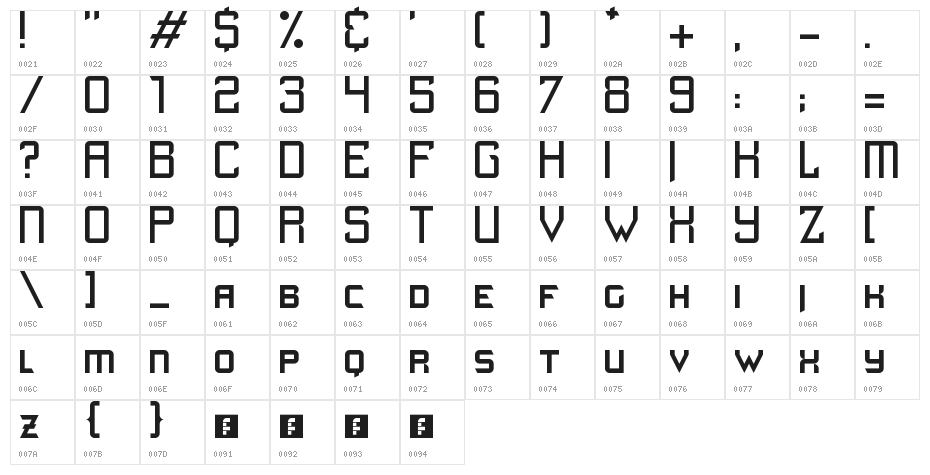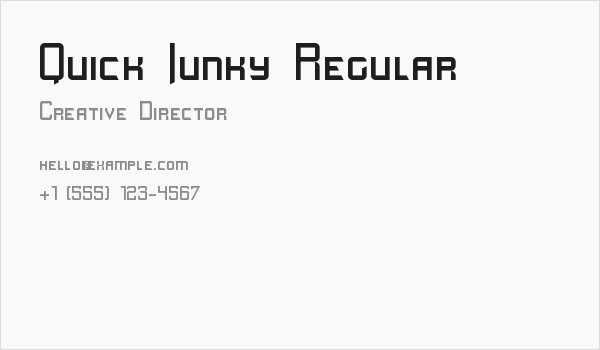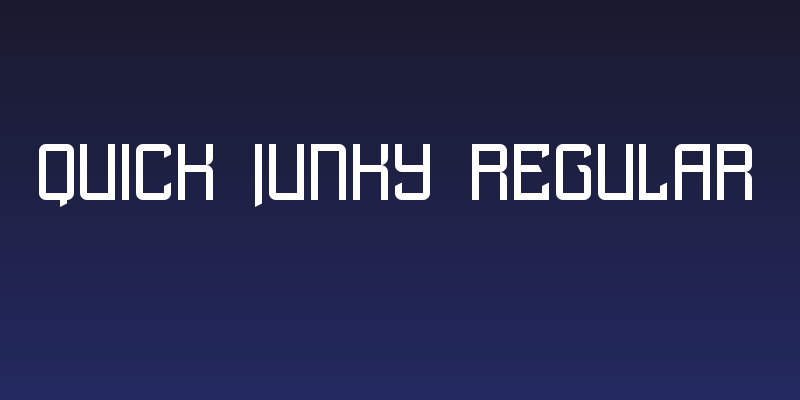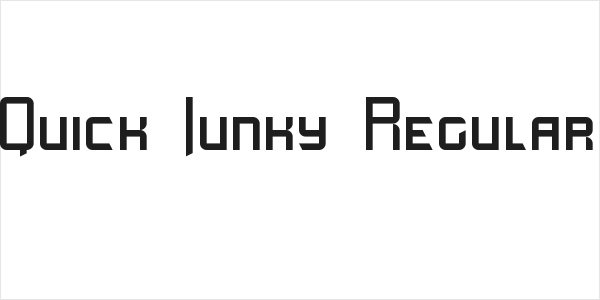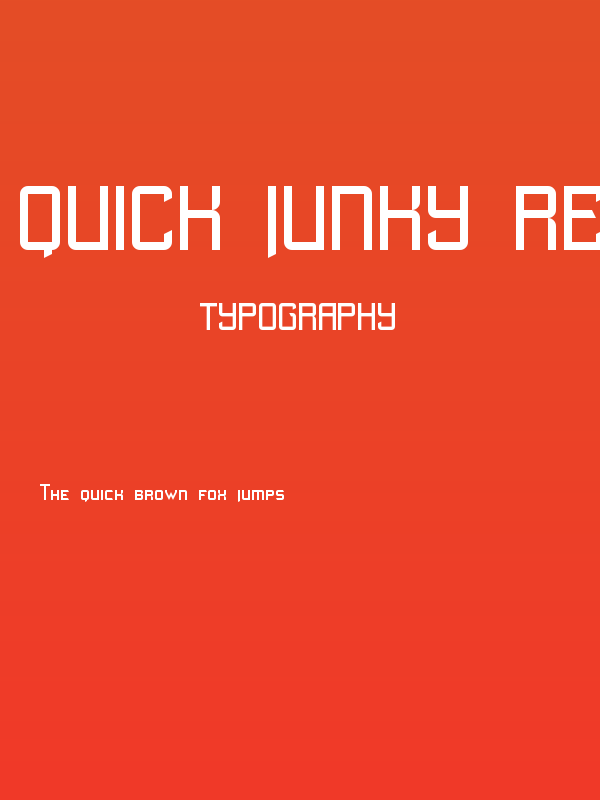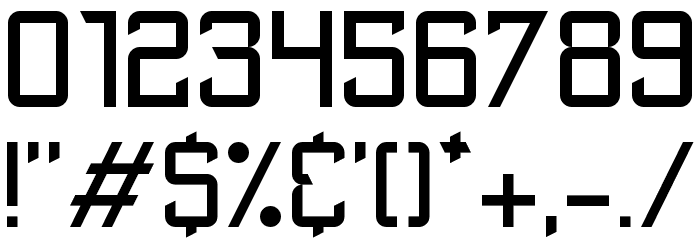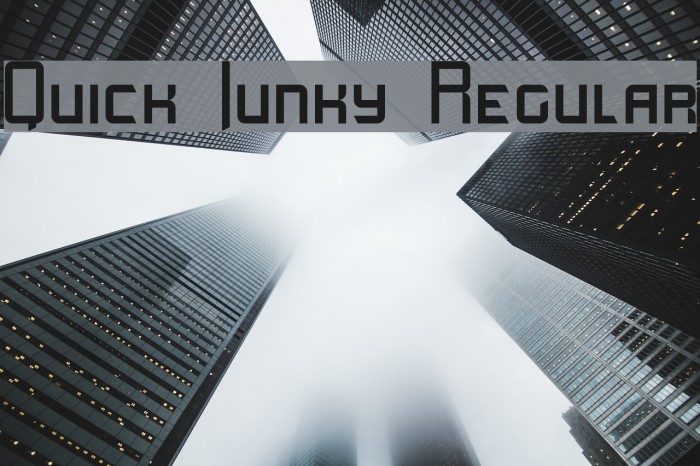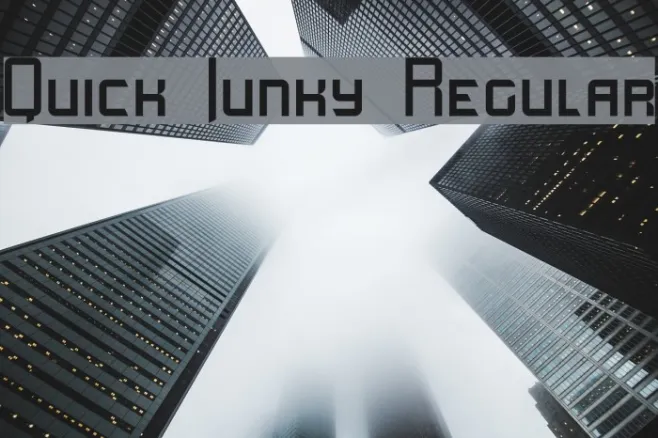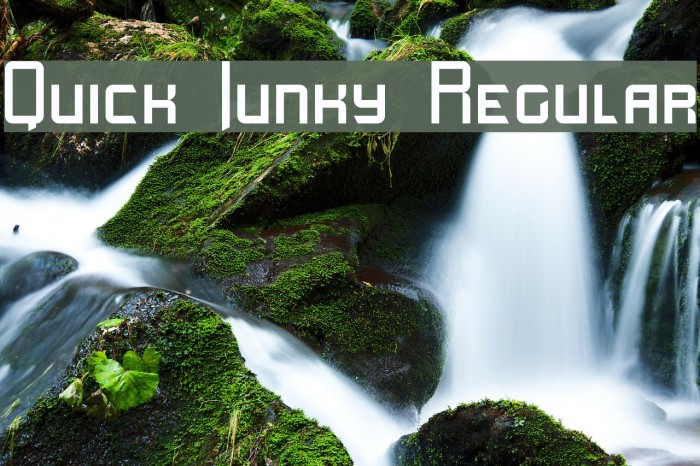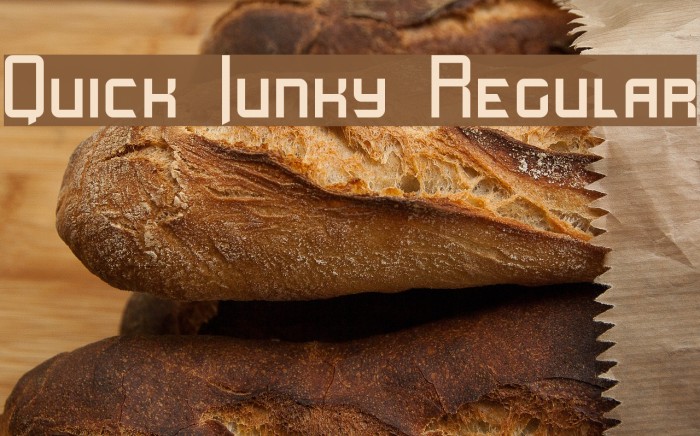
Quick Junky Regular Font
Quick Junky Regular Description
This font features a bold, geometric design with sharp angles and a modern aesthetic. The uppercase and lowercase letters maintain a consistent height, creating a uniform appearance. The numerals and special characters are designed to match the angular style, providing a cohesive look across all glyphs. The font's structure is clean and precise, making it suitable for projects that require a contemporary and edgy feel. Its distinct style is characterized by a combination of straight lines and subtle curves, giving it a unique and recognizable appearance.
| Proposed Projects | Ideal for branding, posters, headlines, and digital media that require a modern and edgy look. |